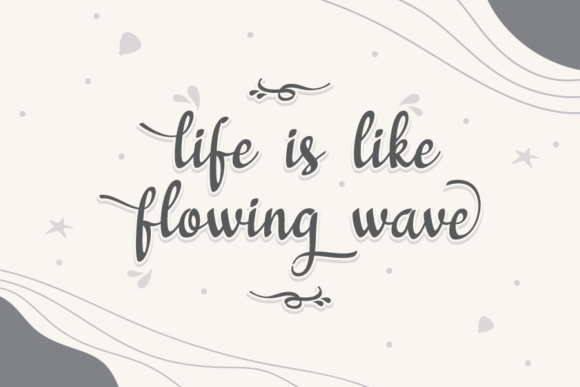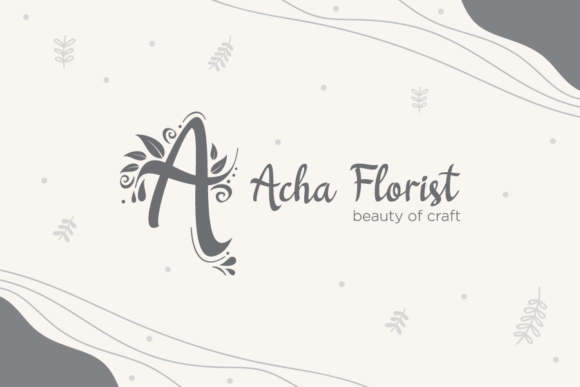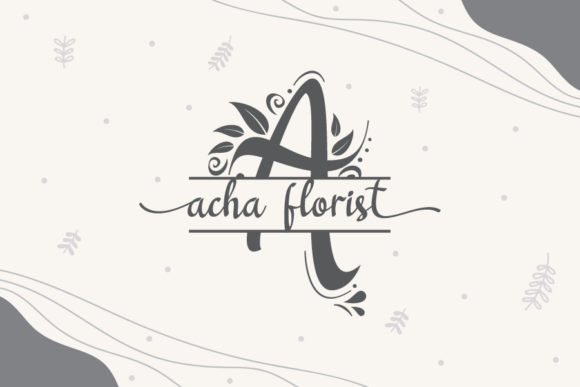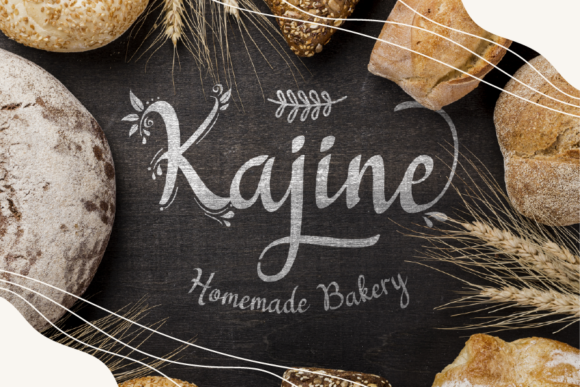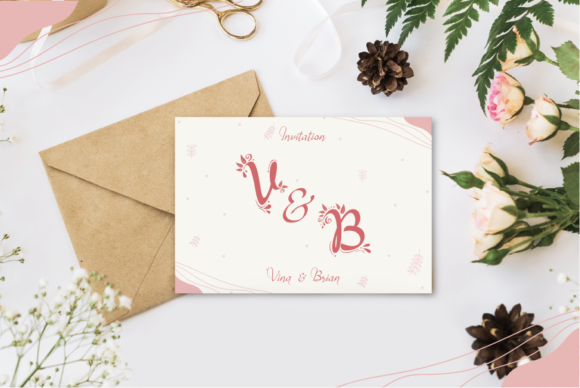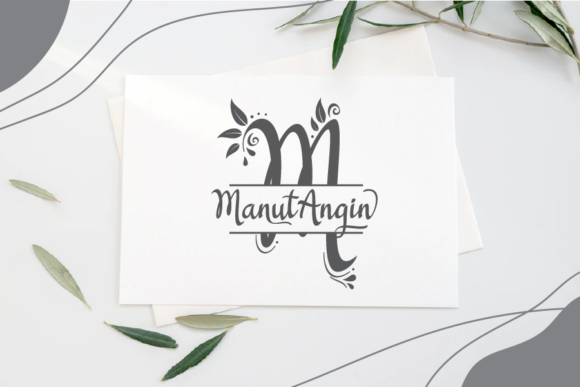
The Butterfiel Script Font: A Chic and Cheery Addition to Your Design Arsenal
I’ll never forget the time I was working on a project for a client who wanted a custom wedding invitation design. I had spent hours browsing through font libraries, but nothing seemed quite right. That was until I stumbled upon the Butterfiel Script font. Its elegant, flowing script and playful decorative companion font instantly caught my eye. I knew right then and there that I had found the perfect match for my design. In this article, I’ll share with you why I’m so enamored with this font, its features, and how to make the most of it in your designs.
An Honest Review of Butterfiel Script
• ✨ The script and decorative fonts are designed to complement each other perfectly, giving you endless possibilities for creative combinations.
• ✅ The chic and cheery vibe of this font is perfect for adding a touch of elegance and whimsy to your designs.
While I adore the Butterfiel Script font, there are a few minor things to keep in mind:
• ⚠️ As with any script font, it may not be the best choice for very small text sizes or body text, as it can become difficult to read.
The Story Behind Butterfiel Script
While the origins of Butterfiel Script are shrouded in mystery, it’s clear that the designer was inspired by the art of handwriting and the beauty of flowing script. With its elegant lines and playful decorative elements, this font is perfect for adding a touch of whimsy and sophistication to your designs.
Font Name Butterfiel Script Font
Author Skillyas Studio
Q: Is Butterfiel Script suitable for body text or small text sizes?
A: While Butterfiel Script is a beautiful font, it’s not ideal for body text or small text sizes. Its elegant lines and flowing script are best suited for display text or headings.